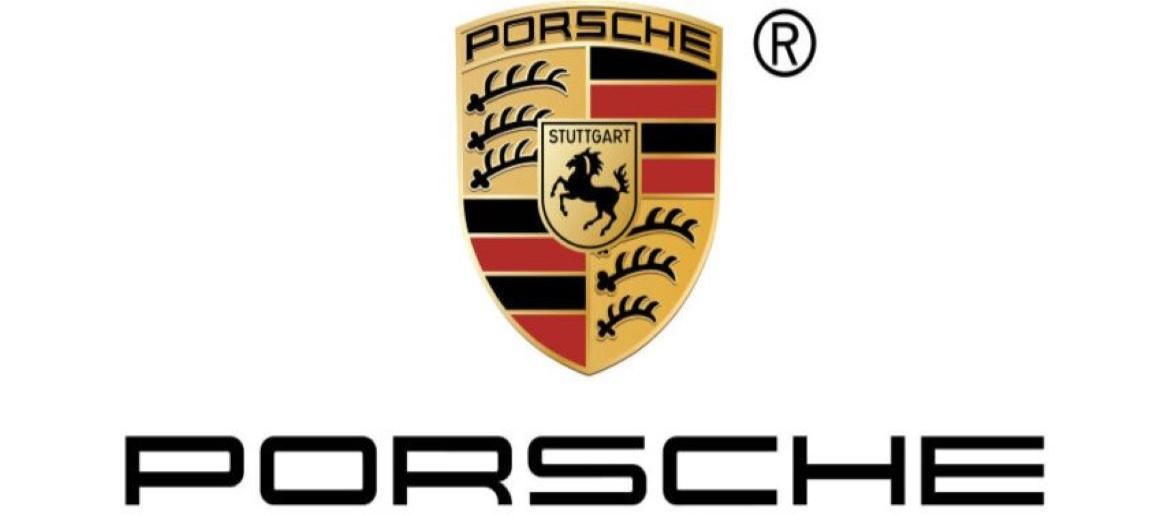
Porsche Font
The Porsche Font embodies the essence of luxury and performance through its streamlined, modern design. Its crisp, geometric sans-serif letterforms convey sophistication while remaining effortlessly readable. This font doesn’t rely on embellishments; instead, its elegance comes from simplicity, mirroring the precision engineering and sleek aesthetics of Porsche vehicles.
About Porsche
Porsche is a German luxury automobile manufacturer founded in 1931, renowned for sports cars, SUVs, and high-performance vehicles. Synonymous with engineering excellence and driving pleasure, Porsche has shaped the automotive world with iconic models like the 911, Taycan, and Cayman. The brand represents a blend of innovation, precision, and timeless style, with a global reputation for performance and design.